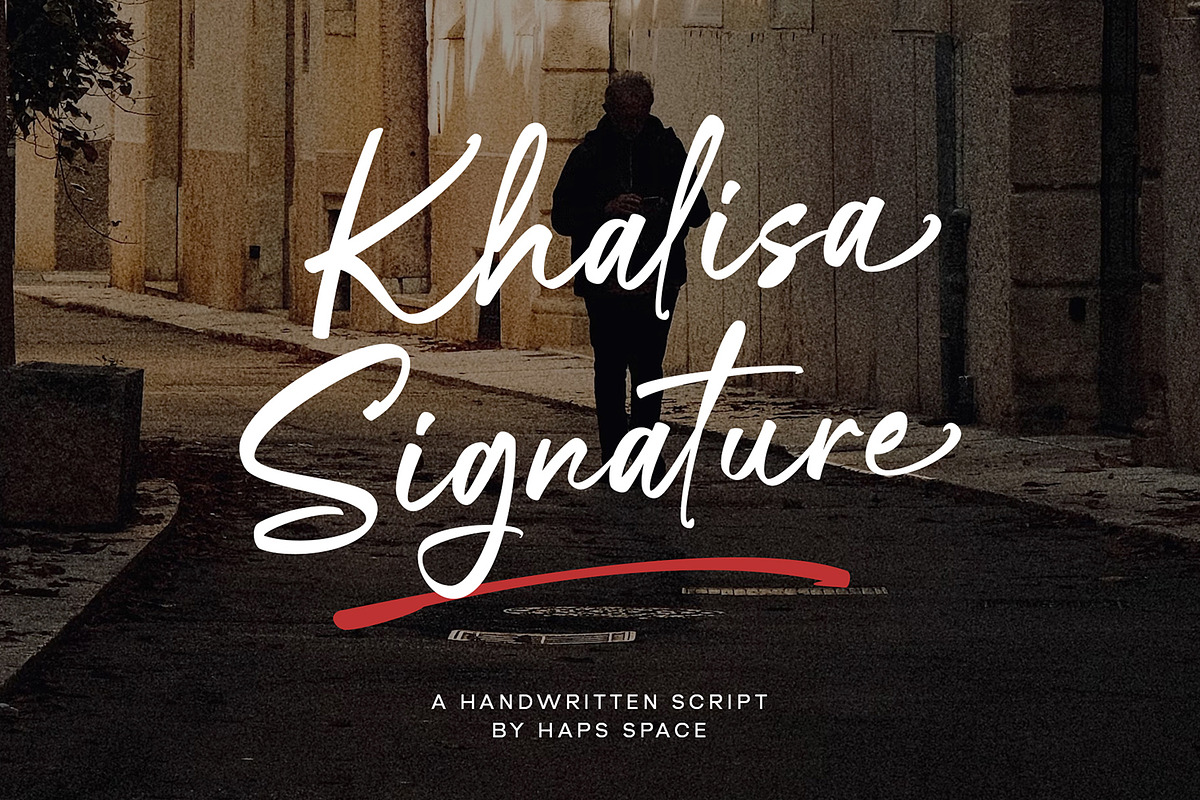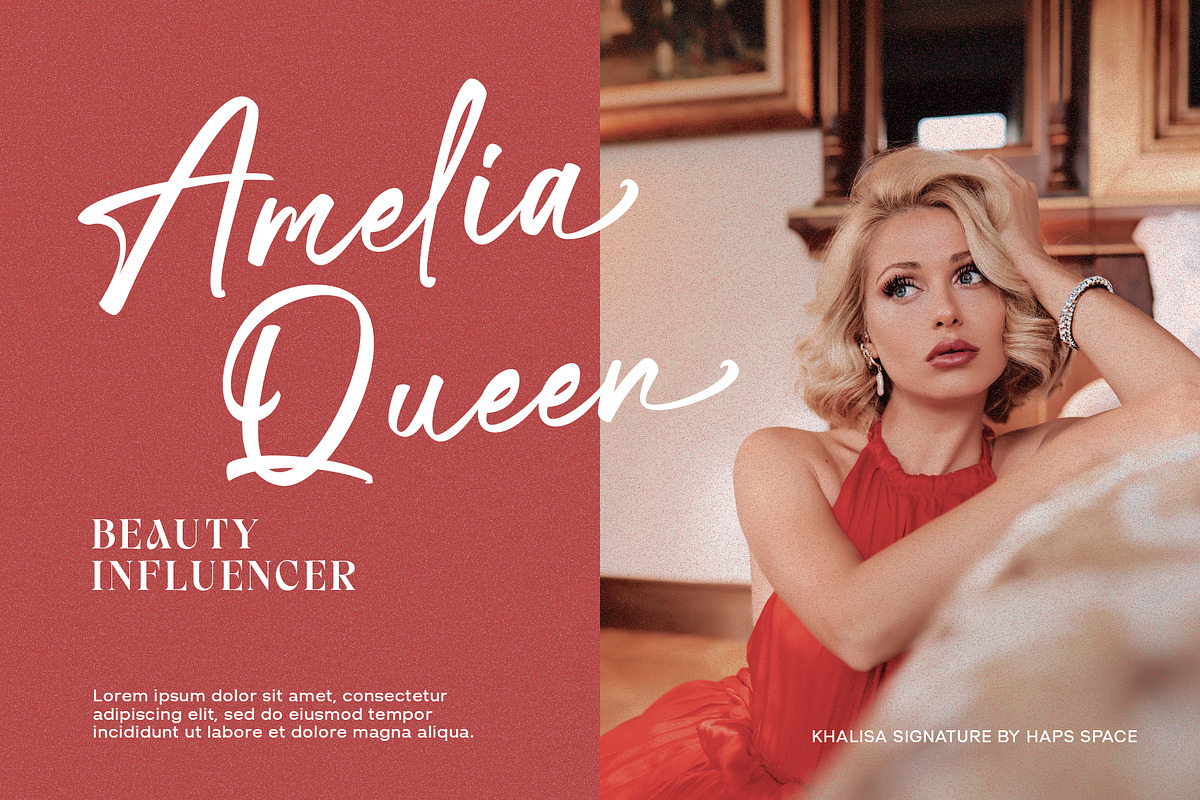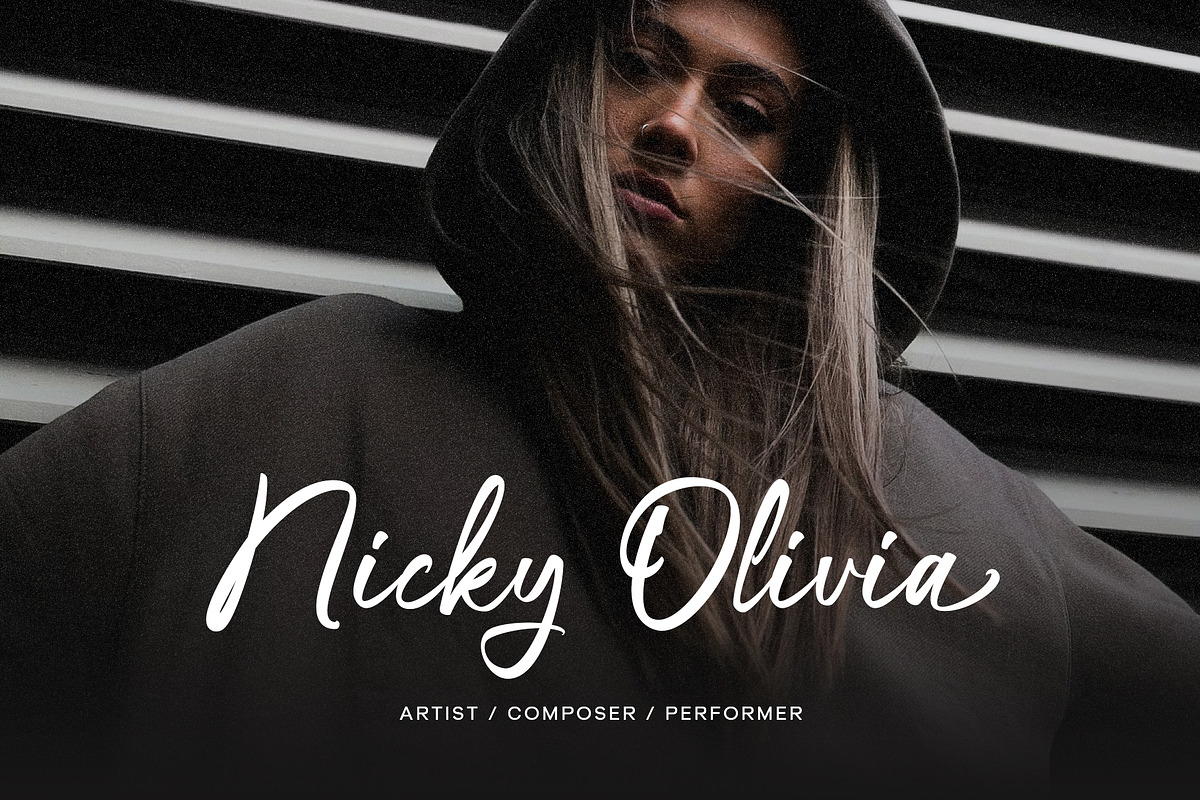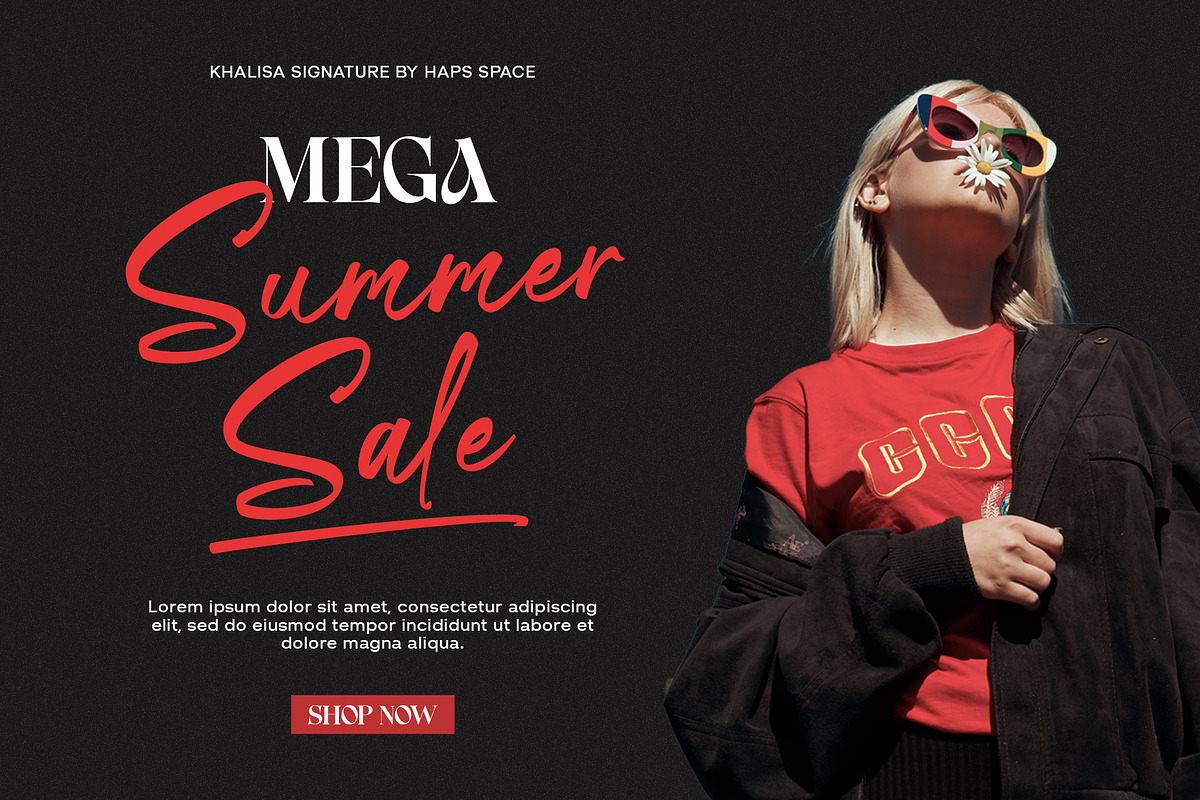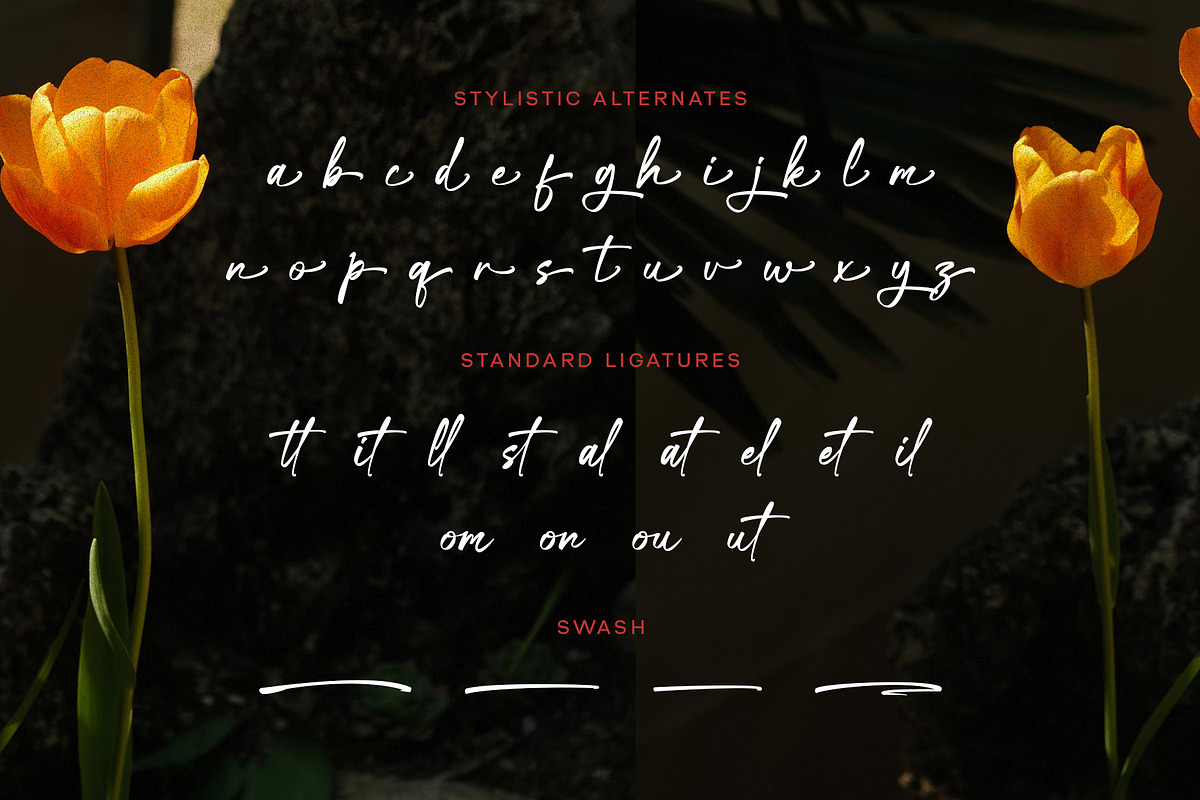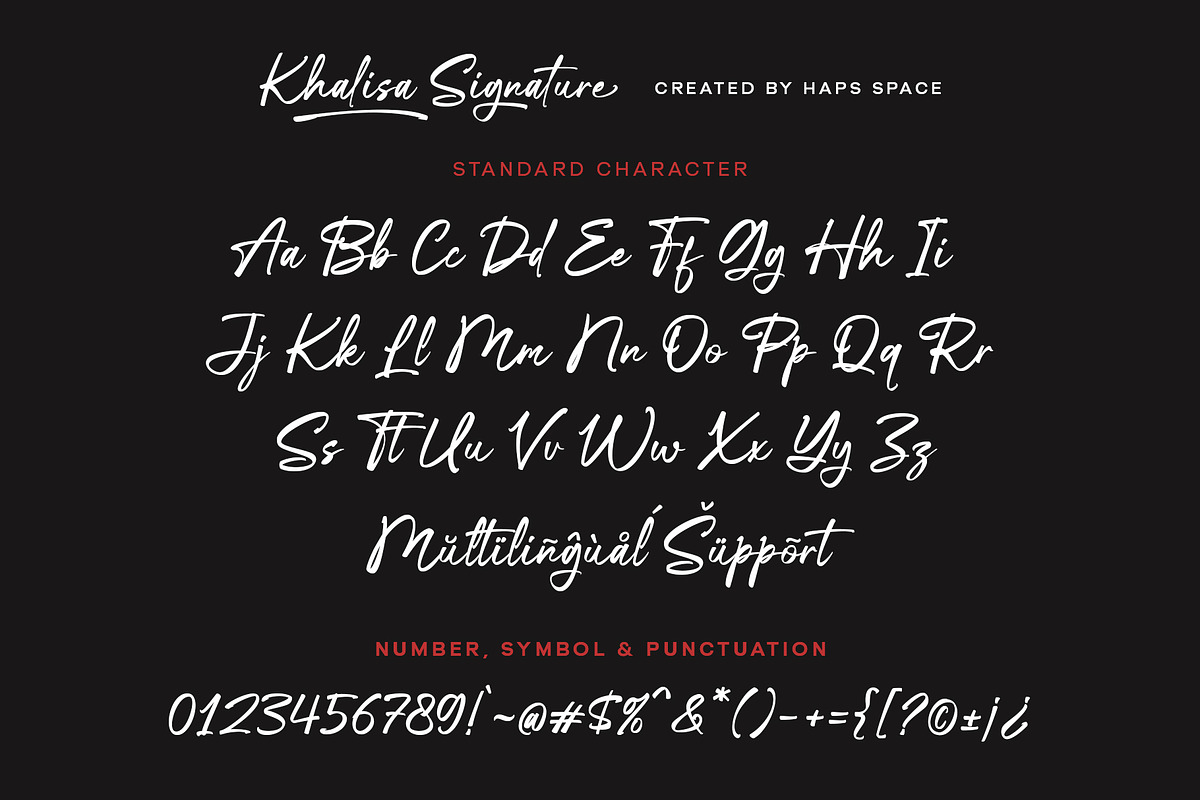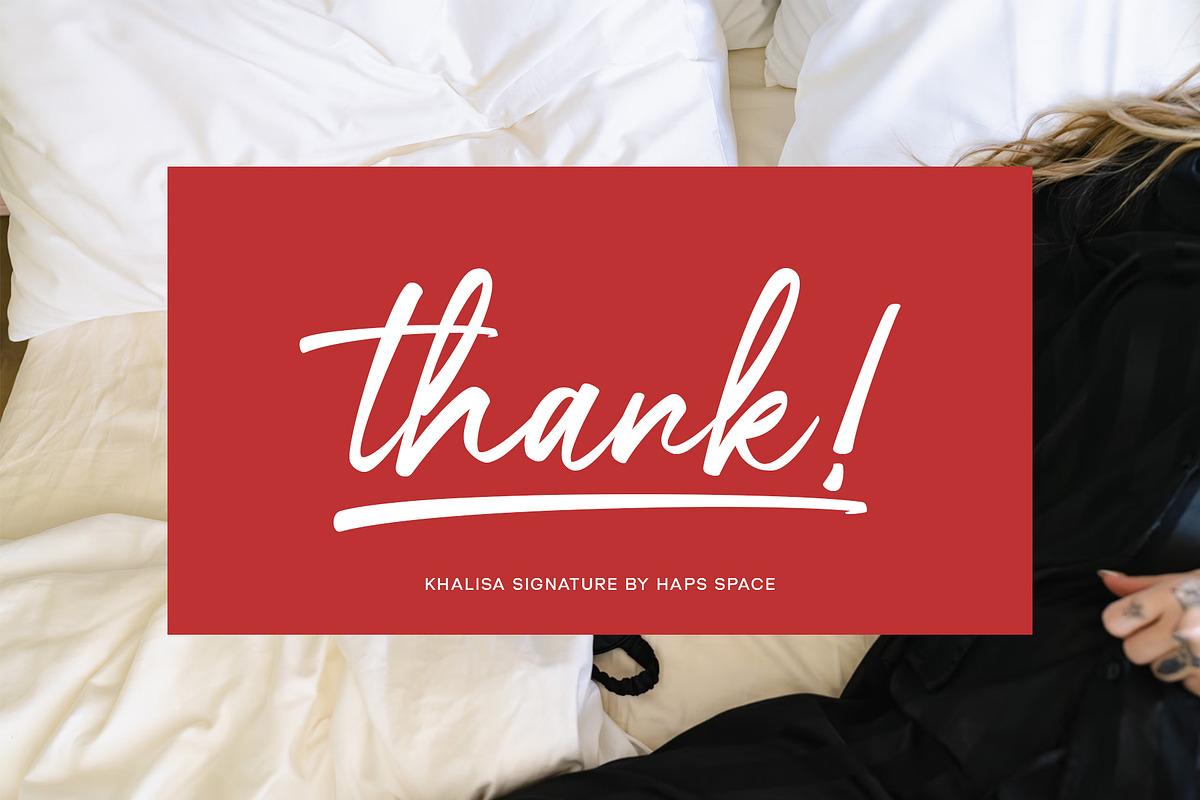
Khalisa Signature
Khalisa Signature is an elegant, handwritten script font that exudes sophistication and personal style. Crafted with attention to detail, this font features smooth, flowing letterforms that mimic a natural handwriting style, making it ideal for branding, invitations, quotes, and more. The font’s dynamic curves and graceful strokes give it a unique and authentic feel, ensuring your designs stand out with a touch of personal flair.
- Handwritten script with elegant, flowing letterforms
- Perfect for logos, invitations, quotes, and branding
- Easy to use and versatile for a variety of design projects
- Includes uppercase and lowercase letters, numbers, and punctuation
- Comes with smooth, readable strokes that maintain legibility in any size